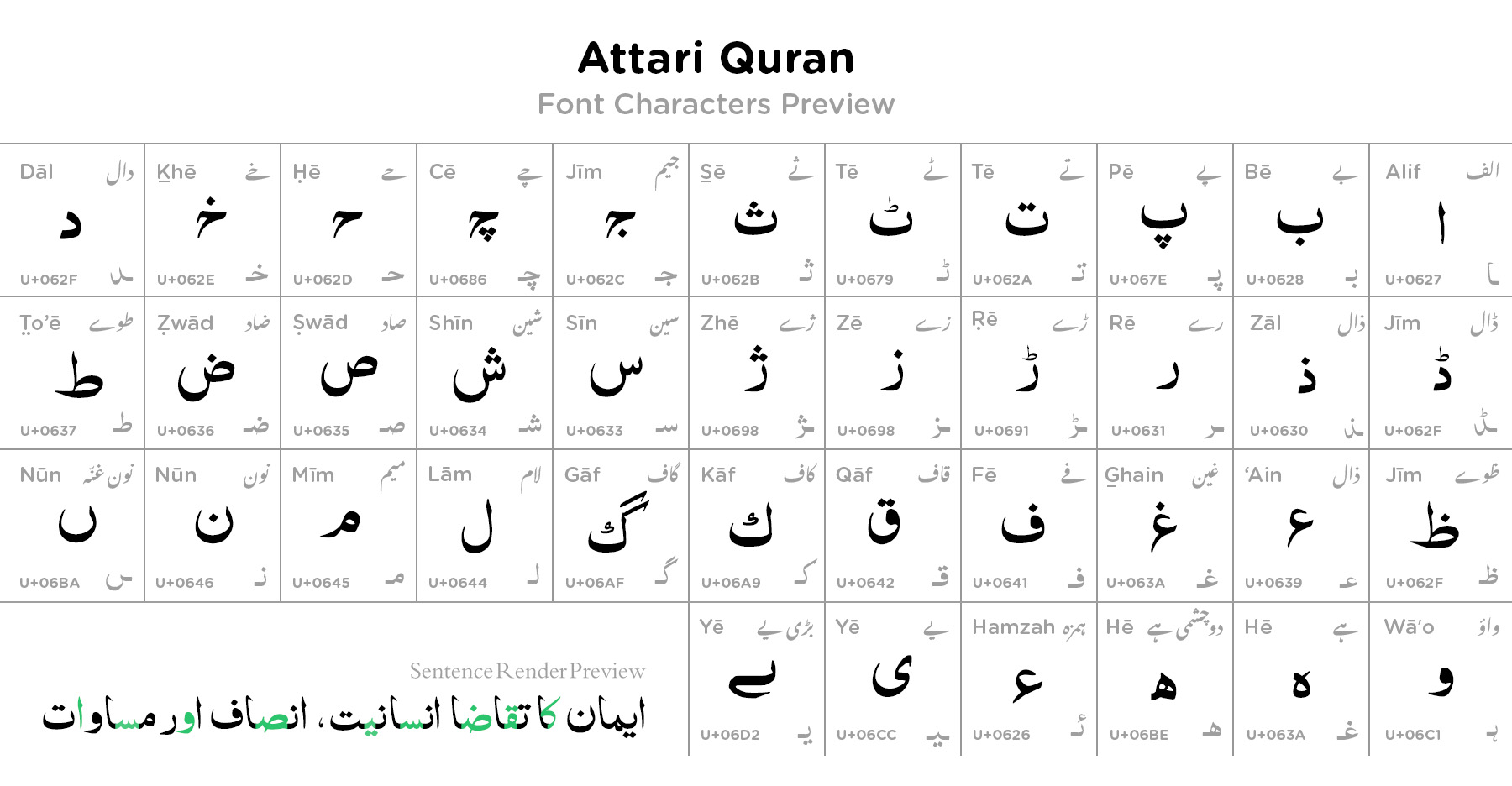
Attari Quran, developed by Pakistan Data Management Services, is a regular Urdu font that can be recognized by a rounded, Qalam writing style reminiscent of Quranic calligraphy. This font closely follows the rules of Quranic calligraphy in Pakistan, following the esteemed style of Yameen Dehlvi, one of the nation’s finest Quranic calligraphers. Guided by Mohammed Saleem, a student of renowned calligraphers Mohammed Iqbal Saeed and Yameen Dehlvi, this font achieves a balance between calligraphic beauty and legibility. Its advanced Arabic typography closely resembles traditional calligraphy, capturing the essence of the Quran Majeed Arabic text.
This font has high-quality glyphs with proper placements of aeraabs/markings and includes all waqfs (special symbols) essential for identifying pauses in reading. With inspiration drawn from the Naskh script and modern influences, it offers compatibility with various languages and platforms. Although slightly tilted leftwards, the font’s vertical characters exude a formal yet less decorative appearance, featuring pointy edges and soft corners. Consistent spacing between letters and a balanced thickness ensures readability and aesthetic appeal across longer text blocks. Ideal for branding, calligraphy, Quran writing, and formatting documents, Attari Quran Font is a powerful tool for desktop and internet publishing of the Holy Quran, seamlessly integrating with software supporting OTF specifications like Microsoft Word and Internet Explorer.